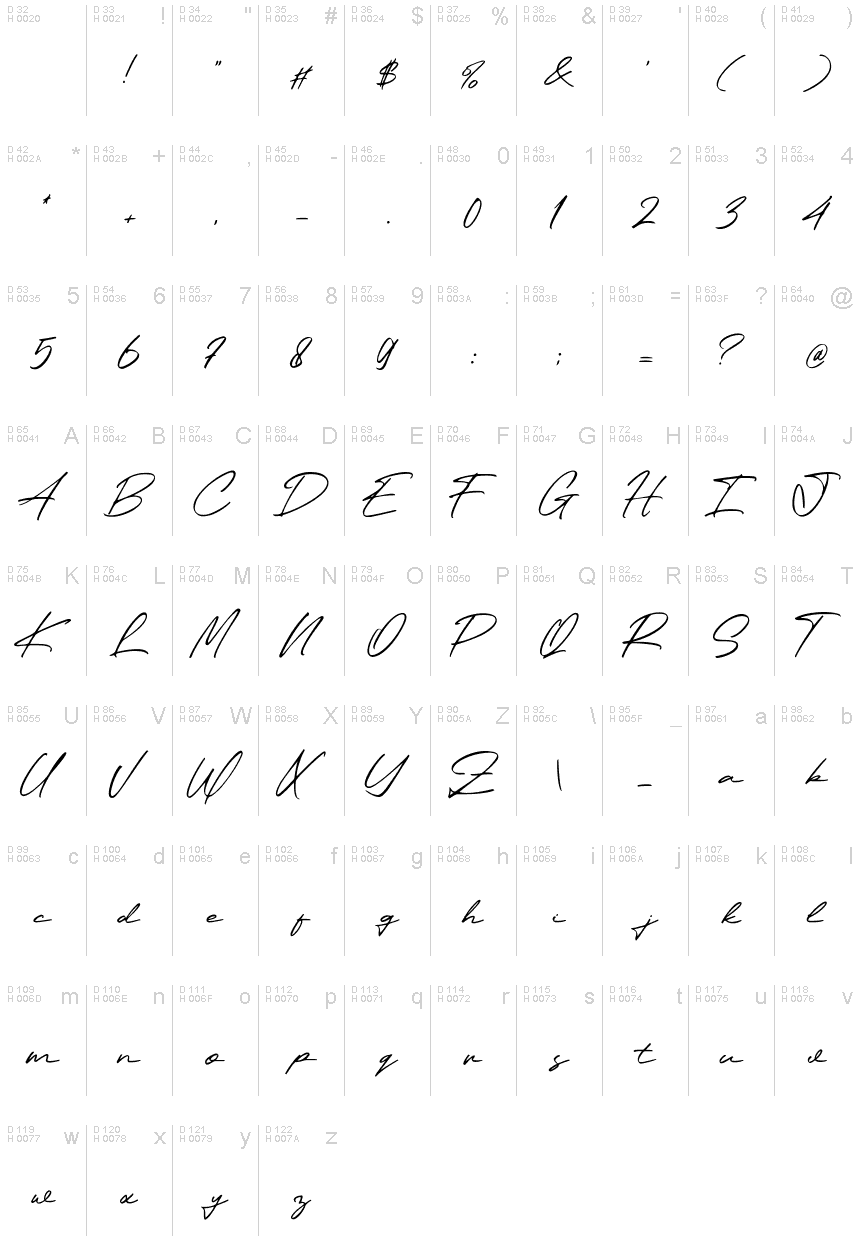
Windpath
Windpath, designed by Khurasan, embodies the elegance and fluidity of handwritten script with a light font weight that adds a touch of grace. Its sweeping curves and fine lines evoke the natural movement of wind through a path, giving text a dynamic yet delicate presence. The aesthetic of Windpath is characterized by its personal and intimate feel, reminiscent of traditional calligraphy but with a contemporary twist that makes it versatile for modern design projects.
This font's distinct style provides an excellent choice for invitations, branding materials, and artistic compositions where a human touch is desired. The airy lightness of Windpath ensures that it maintains readability while adding visual interest to words without overpowering accompanying design elements. Whether used for headlines or body text in creative ventures, Windpath offers designers the opportunity to infuse their work with personality and subtle sophistication.